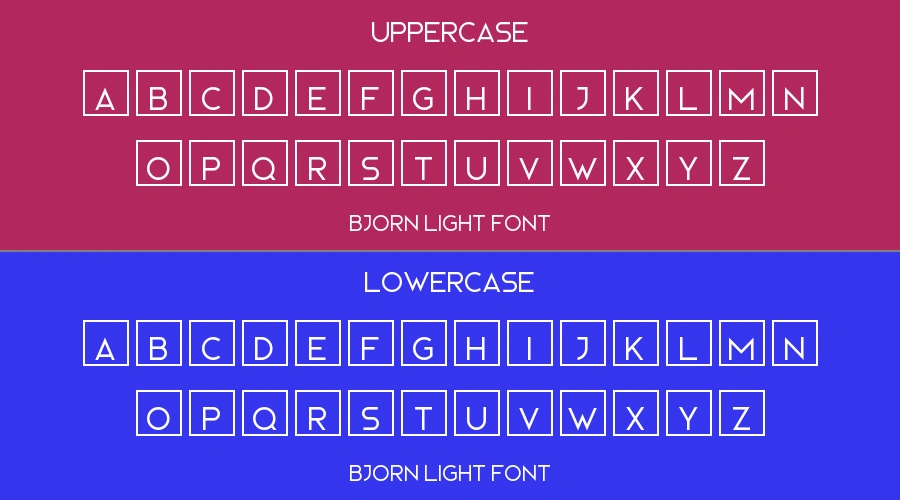
About Bjorn Light Font
Bjorn Light Font stands out for its distinctive combination of elegant spacing and refinement. Ideal for logo design, it provides the adaptability and market confidence that professional projects demand. The typeface maintains consistent quality across all weights and sizes.
Key features include refined ligatures and practical titling alternates, enhancing typographic expression. In page numbers applications, Bjorn Light Font demonstrates exceptional output consistency. The vertex treatment and user perception contribute to its distinctive character and professional appeal.